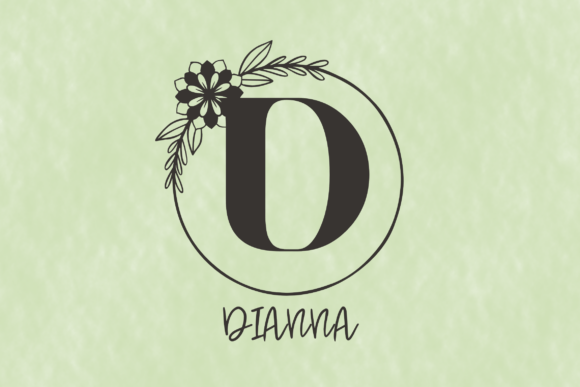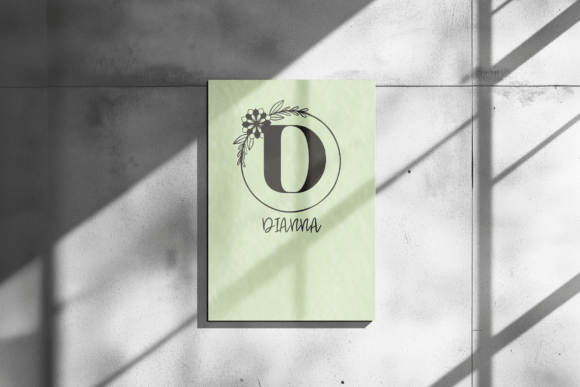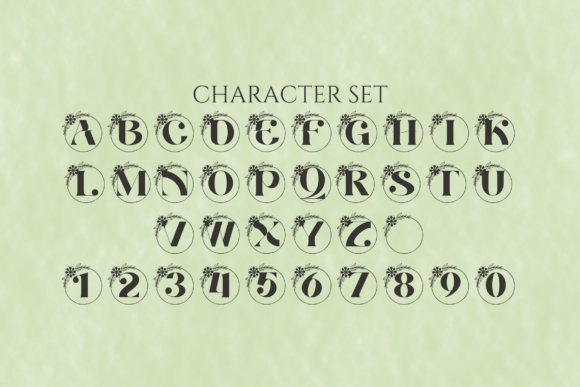
Introducing Alora Monogram Font: Elevate Your Designs with Sophistication and Elegance
In the realm of design, the right typography can make all the difference. For those seeking a font that embodies sophistication, versatility, and a touch of luxury, Alora Monogram Font is an exceptional choice. This crisp and polished font is tailored to meet various design needs, making it an ideal staple for professionals and crafters alike.
Unparalleled Versatility for Diverse Design Applications
Alora Monogram Font stands out due to its robust versatility. It is specifically designed for crafting emblematic monograms, distinctive logos, and bespoke branding. Whether you’re working on posh wedding invitations, high-end brand aesthetics, or artisanal stationery, this font seamlessly adapts to your design requirements. Its urbane letter structures, laced with fine detailing, epitomize sophistication, allowing designers to create visually stunning and cohesive pieces.
The Epitome of Elegance and Sophistication
What sets Alora Monogram Font apart is its ability to infuse a burst of dignified class and singular elegance into every design pursuit. Whether you’re aiming to create a chic logo or an enduring memento, this font transcends the ordinary. It’s not merely a typeface; it’s a tool that helps your design narrative ooze exclusivity and refinement. With Alora Monogram Font, designers can elevate their work, making it more captivating and memorable.
For designers and crafters looking to make a statement with their work, Alora Monogram Font is a go-to solution. Its fine detailing and sophisticated structure make it perfect for:
• Wedding Invitations: Create elegant and luxurious wedding invites that set the tone for a sophisticated event.
• High-End Branding: Develop a strong brand identity with distinctive logos and bespoke branding elements that exude refinement.
• Artisanal Stationery: Craft unique and visually appealing stationery that stands out from the ordinary.
Why Choose Alora Monogram Font?
Choosing Alora Monogram Font for your design projects comes with numerous benefits:
• Unique and Exclusive: Stand out with a font that brings an air of exclusivity and sophistication to your designs.
• Versatile: Suitable for a wide range of design applications, from monograms and logos to bespoke branding and stationery.
• Elegant: Adds a touch of elegance and class to any design, making it perfect for high-end projects.
• Easy to Use: Seamlessly integrate into your design workflow, making it easy to create stunning pieces.
Alora Monogram Font is more than just a typeface; it’s a design essential for those looking to infuse their work with sophistication, elegance, and a touch of luxury. Its versatility, fine detailing, and urbane letter structures make it the perfect choice for designers and crafters aiming to create distinctive and memorable designs. Whether you’re working on wedding invitations, high-end branding, or artisanal stationery, Alora Monogram Font is poised to elevate your designs to new heights of elegance and refinement.